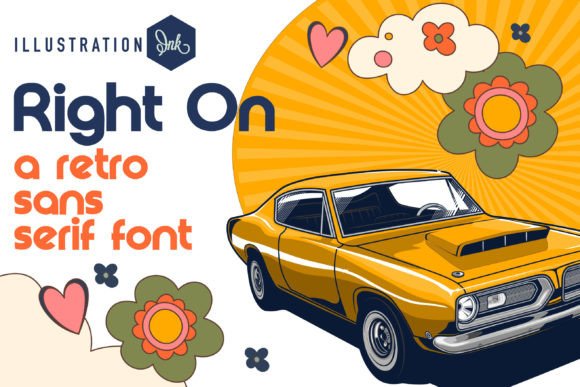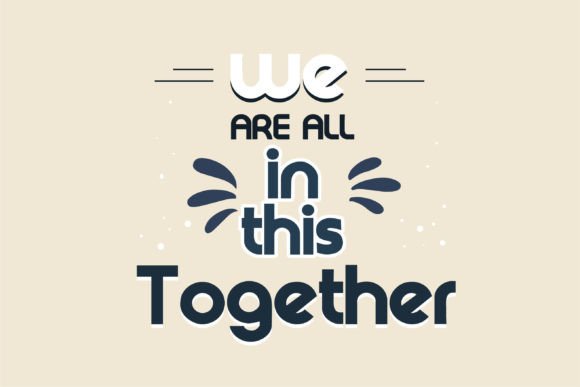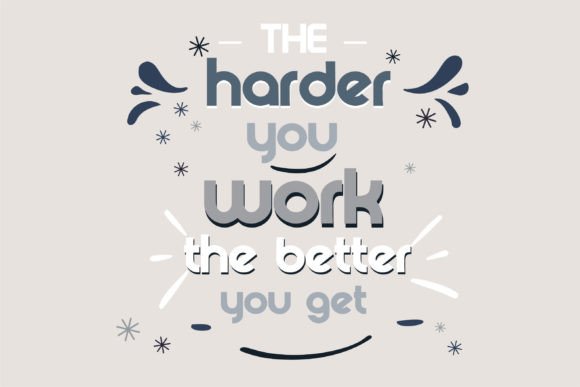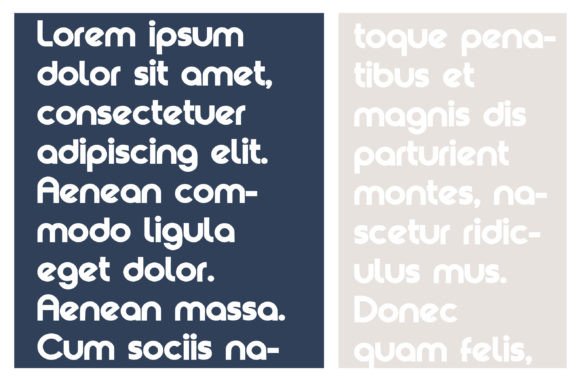
Right On Font: Groovy Retro Sans Serif for Logos & 60s-Inspired Designs
About the Right on Font
Add a touch of class to your work with the Right on Font, a truly exceptional typeface. Right On is a cool retro sans serif font that has soft curves for a rounded, 1960s-like like look and feel. It is the best choice for creating eye-catching logos, branding, and quotes. Every letter has a unique and beautiful touch, which will make your design come alive!
Right On’s retro-inspired curves lend themselves perfectly to headlines, short slogans, and branding applications where a touch of vintage charm is desired. It works exceptionally well for logos, posters, and packaging designs needing a playful yet sophisticated feel. However, its unique letterforms are less suitable for body text or UI elements requiring high readability in extended paragraphs.
The font’s personality is undeniably cheerful and optimistic, with a retro boldness. It evokes a sense of fun and nostalgia, making it ideal for brands targeting a younger demographic or those wishing to project a sense of lightheartedness and approachability.
To complement its rounded forms, consider pairing Right On with a clean, geometric sans-serif for a balanced contrast, or a classic serif like Garamond for a sophisticated juxtaposition of old and new. A thin, elegant script font could also add a touch of vintage flair.